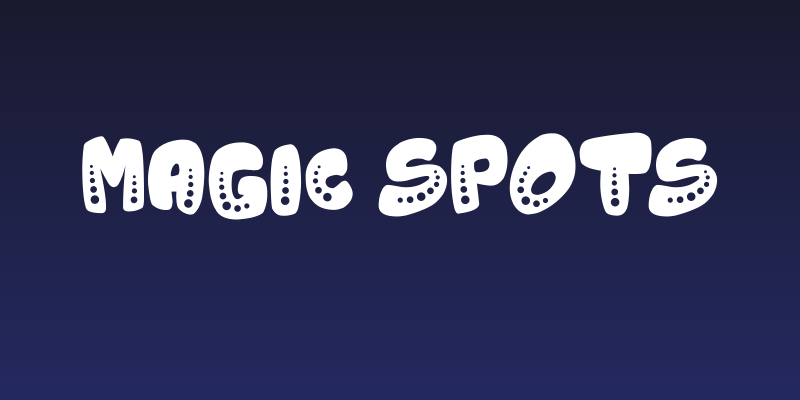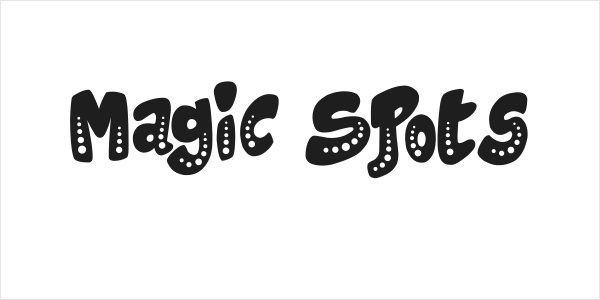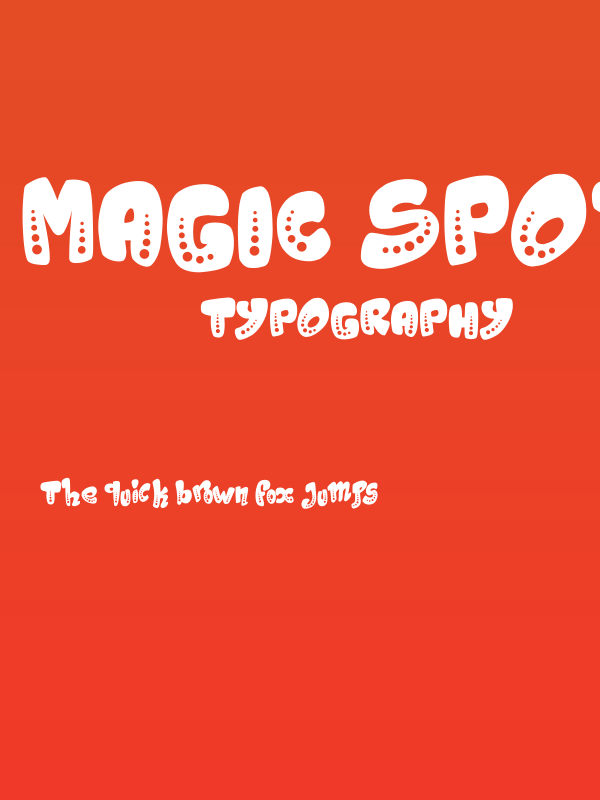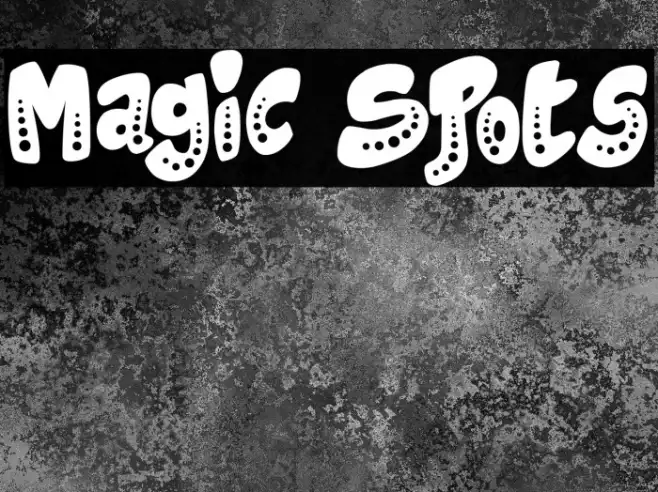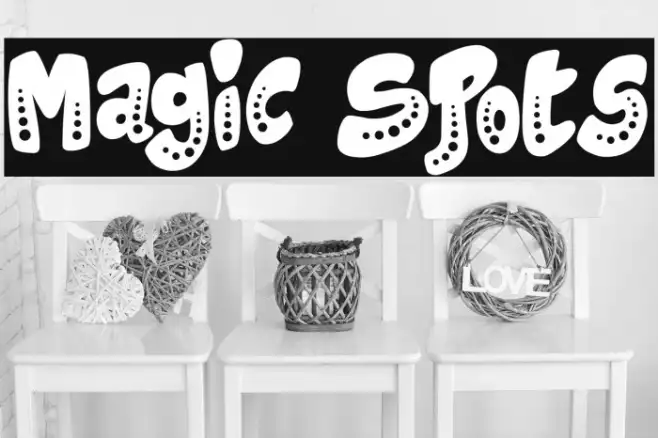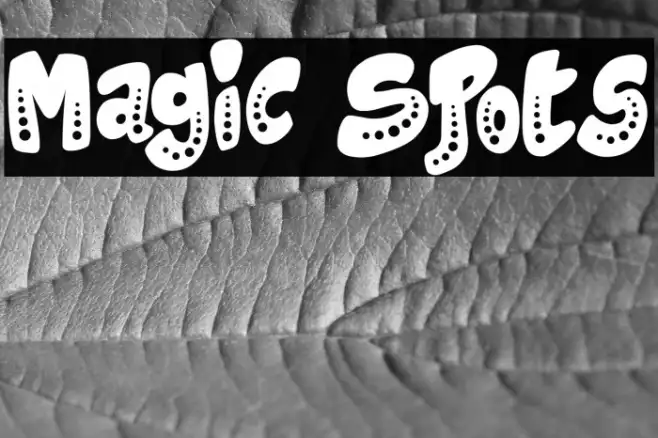
Magic Spots Font
Magic Spots Description
This playful and whimsical font features bold, rounded characters with a unique dotted pattern inside each letter, giving it a lively and fun appearance. The characters are slightly irregular, adding to the charm and informal style of the font. The uppercase and lowercase letters maintain a consistent style, with the dots providing a decorative touch that enhances the overall visual appeal. The numbers and special characters follow the same design principles, ensuring a cohesive look across all elements. This font is perfect for projects that require a cheerful and eye-catching typeface.
| Proposed Projects | Ideal for children's books, party invitations, playful branding, and creative posters. |